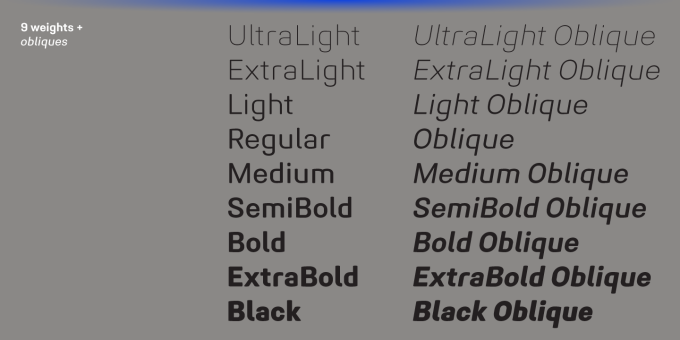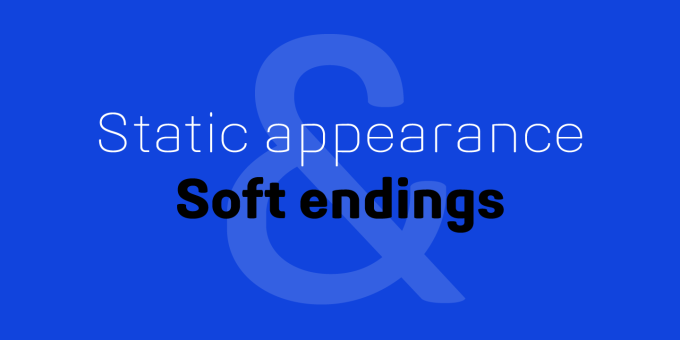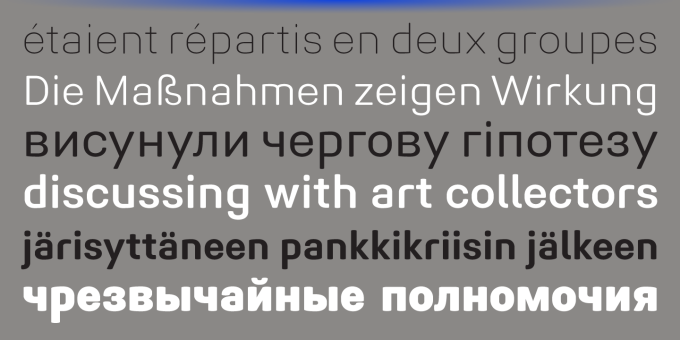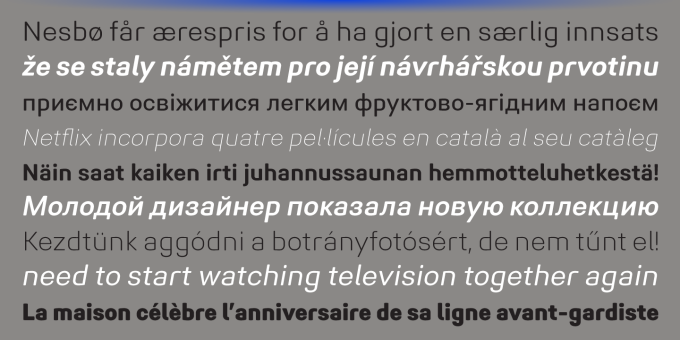
Midpoint Pro
Midpoint Pro is a soft sans-serif typeface with a modern technical look. Its spurless design creates a perfect balance between static rigid verticals and softened endings. The interplay of open and closed forms suggests increased legibility in small sizes and results in a vivid texture.
The typeface will serve for a number of purposes, including posters, corporate branding or screen design of any kind like web or UI layouts.
Midpoint Pro comes in 9 weights + oblique styles, each supporting numerous Latin-based languages as well as major Cyrillic languages. It is packed with OpenType features like ligatures, small caps, 4 sets of digits, 2 stylistic sets, superiors and inferiors, fractions, ordinals, respective punctuation varieties including all-cap punctuation, as well as language-specific alternates.
The typeface will serve for a number of purposes, including posters, corporate branding or screen design of any kind like web or UI layouts.
Midpoint Pro comes in 9 weights + oblique styles, each supporting numerous Latin-based languages as well as major Cyrillic languages. It is packed with OpenType features like ligatures, small caps, 4 sets of digits, 2 stylistic sets, superiors and inferiors, fractions, ordinals, respective punctuation varieties including all-cap punctuation, as well as language-specific alternates.